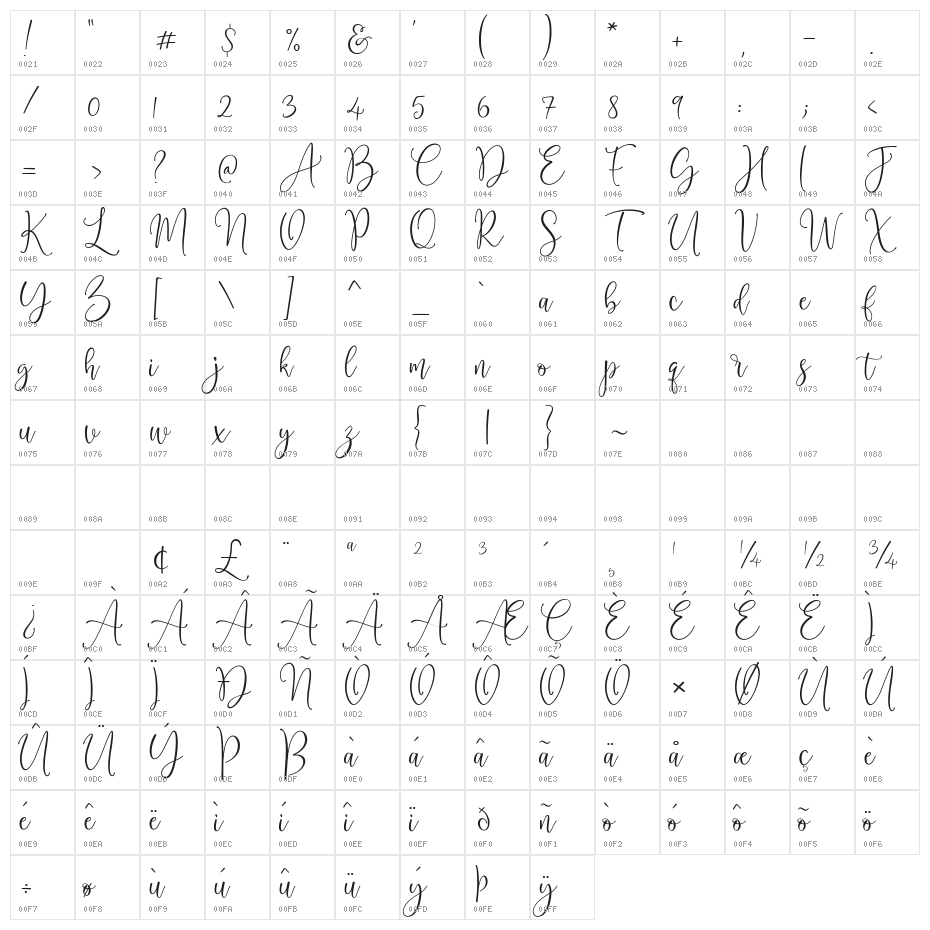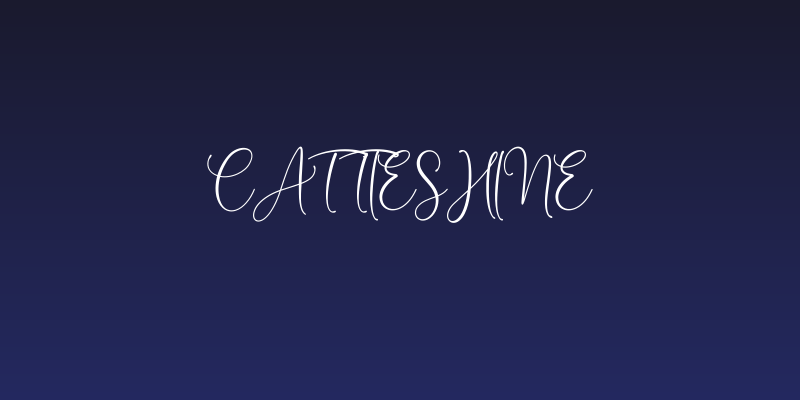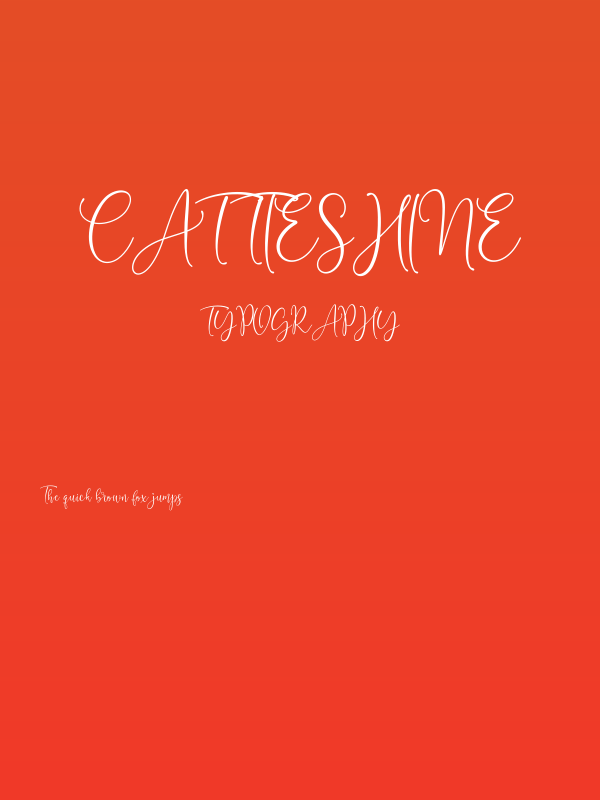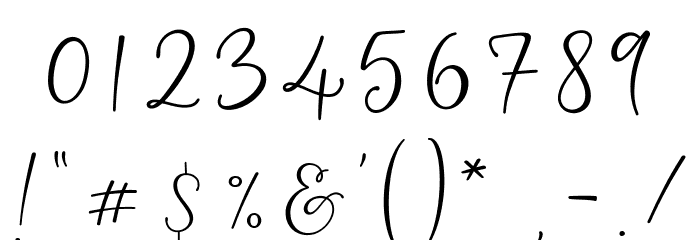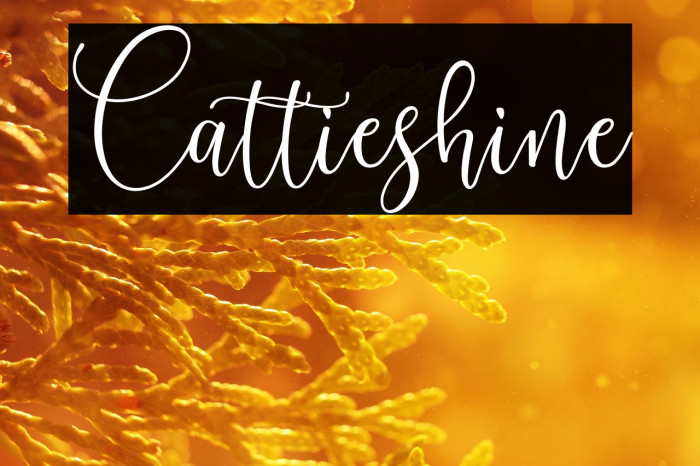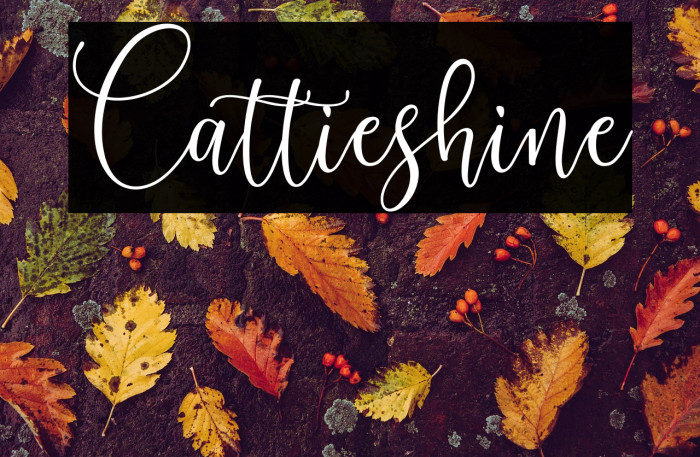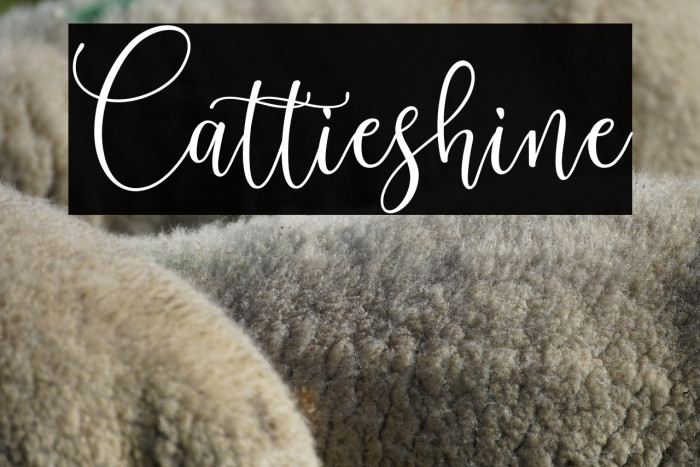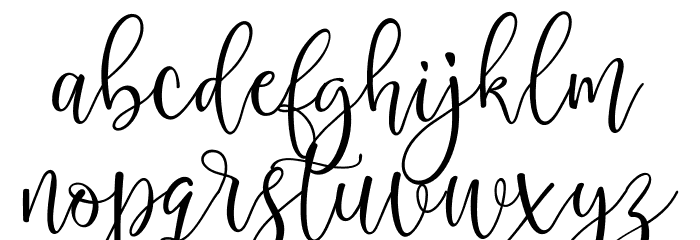
Cattieshine Font
Cattieshine Description
This elegant script font features a flowing, cursive style with a modern twist. The uppercase letters are characterized by their sweeping, dramatic loops and curves, while the lowercase letters maintain a consistent, graceful flow. The numerals are distinct and stylish, complementing the overall aesthetic. Special characters are thoughtfully designed to match the font's sophisticated appearance. The font's strokes vary in thickness, providing a dynamic and lively feel. It is well-suited for projects that require a touch of elegance and personality.